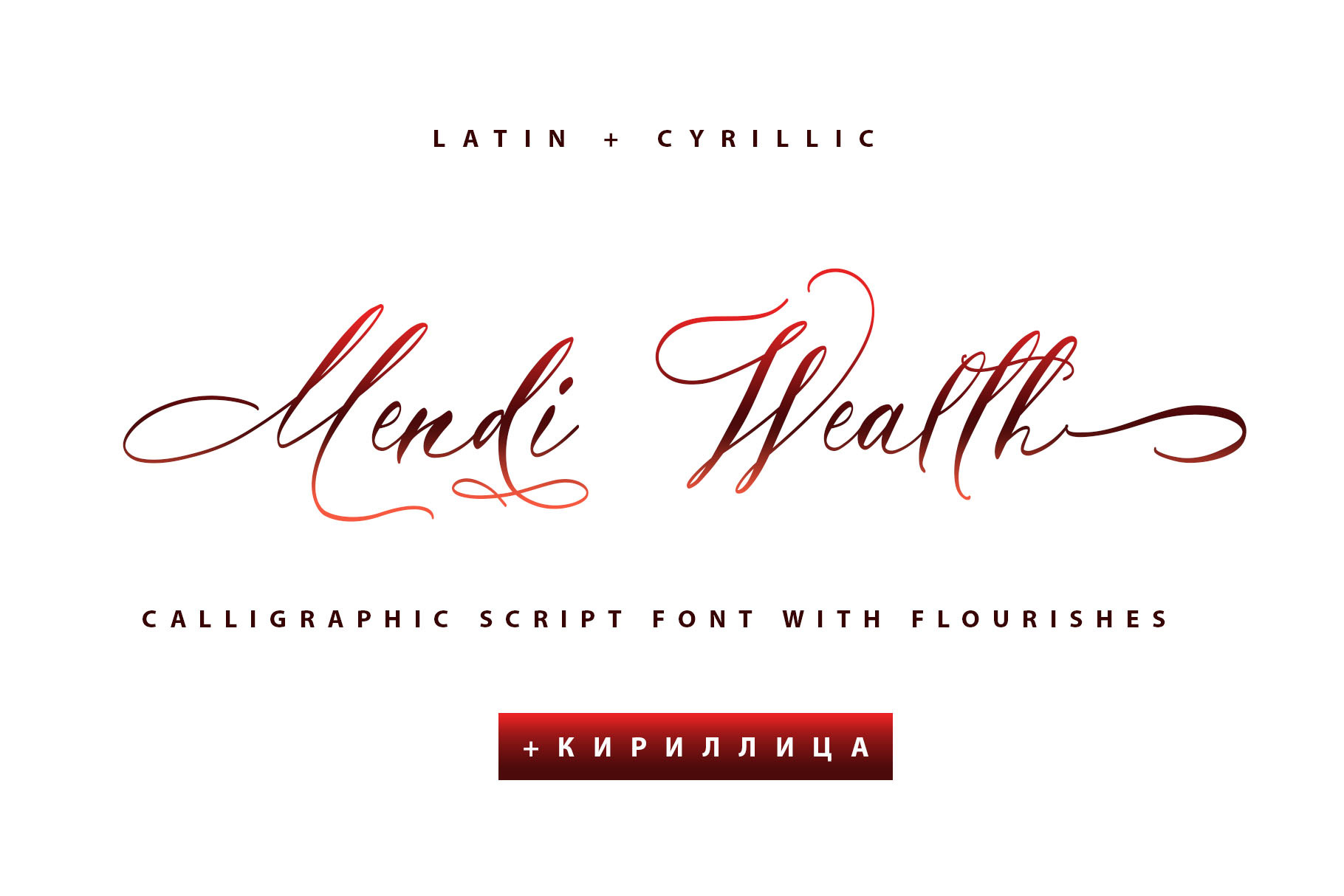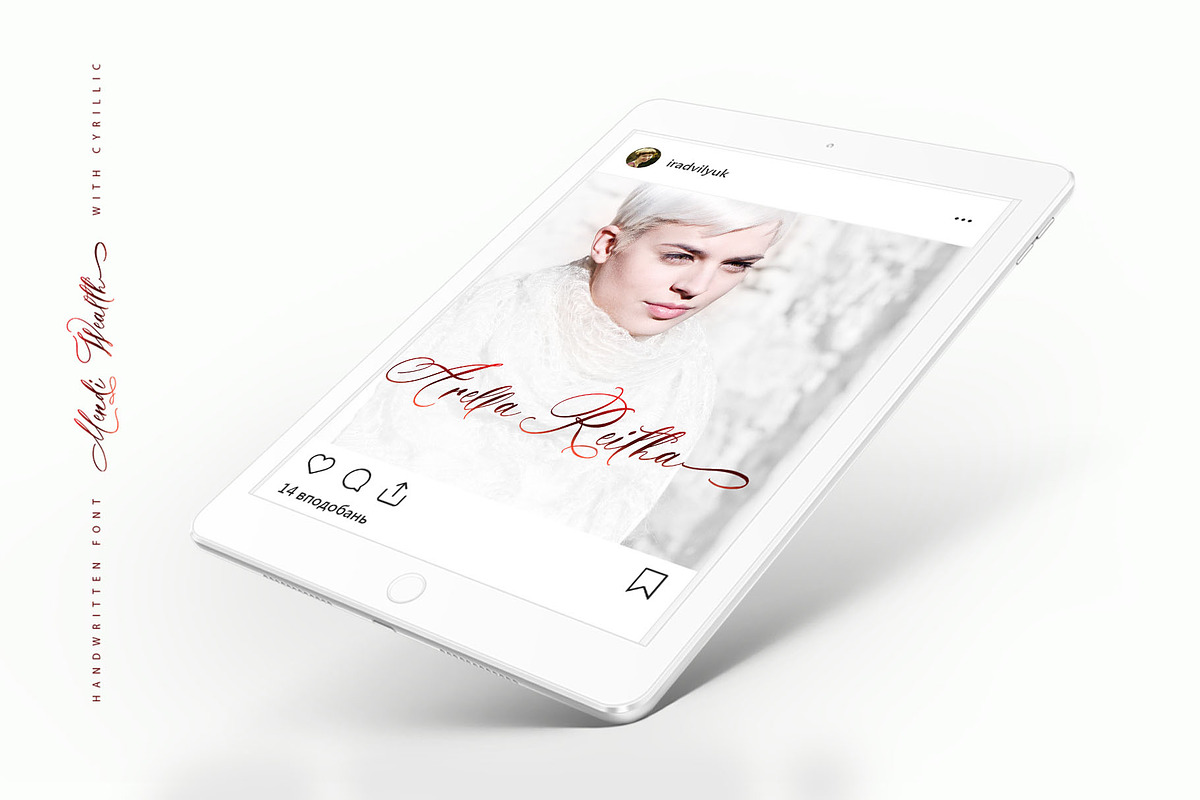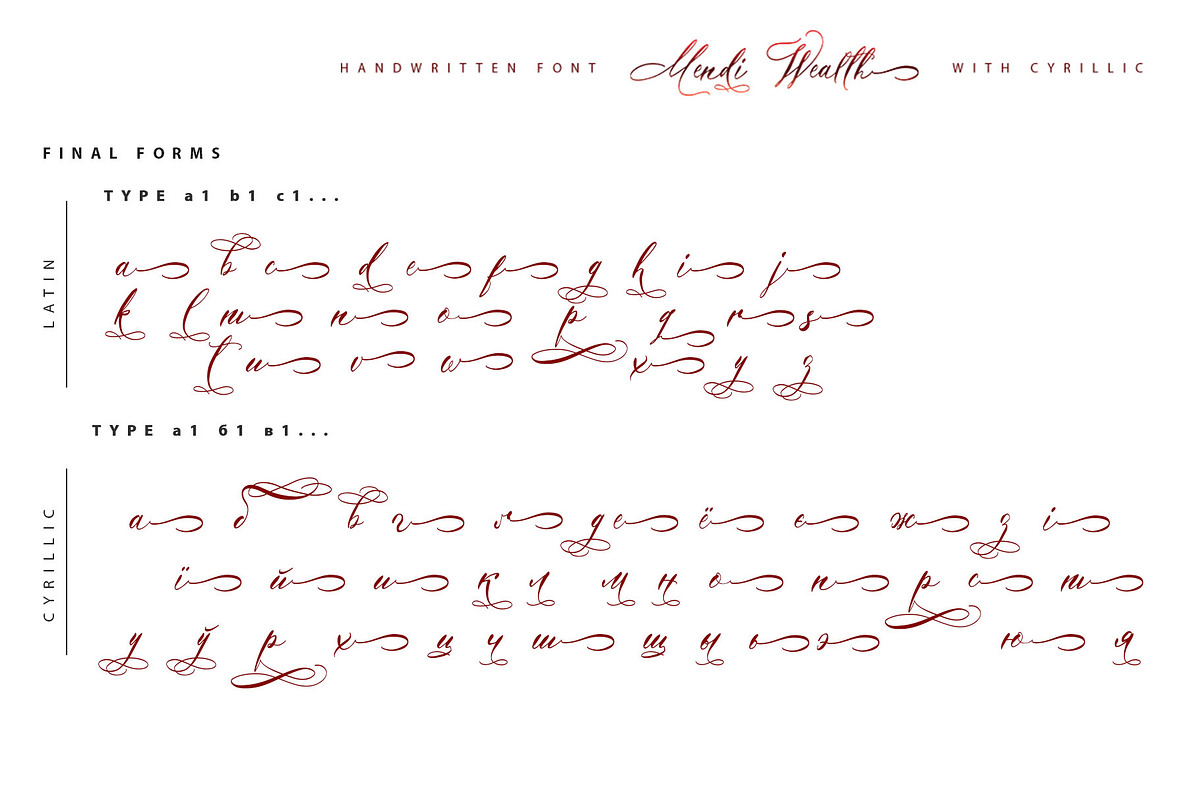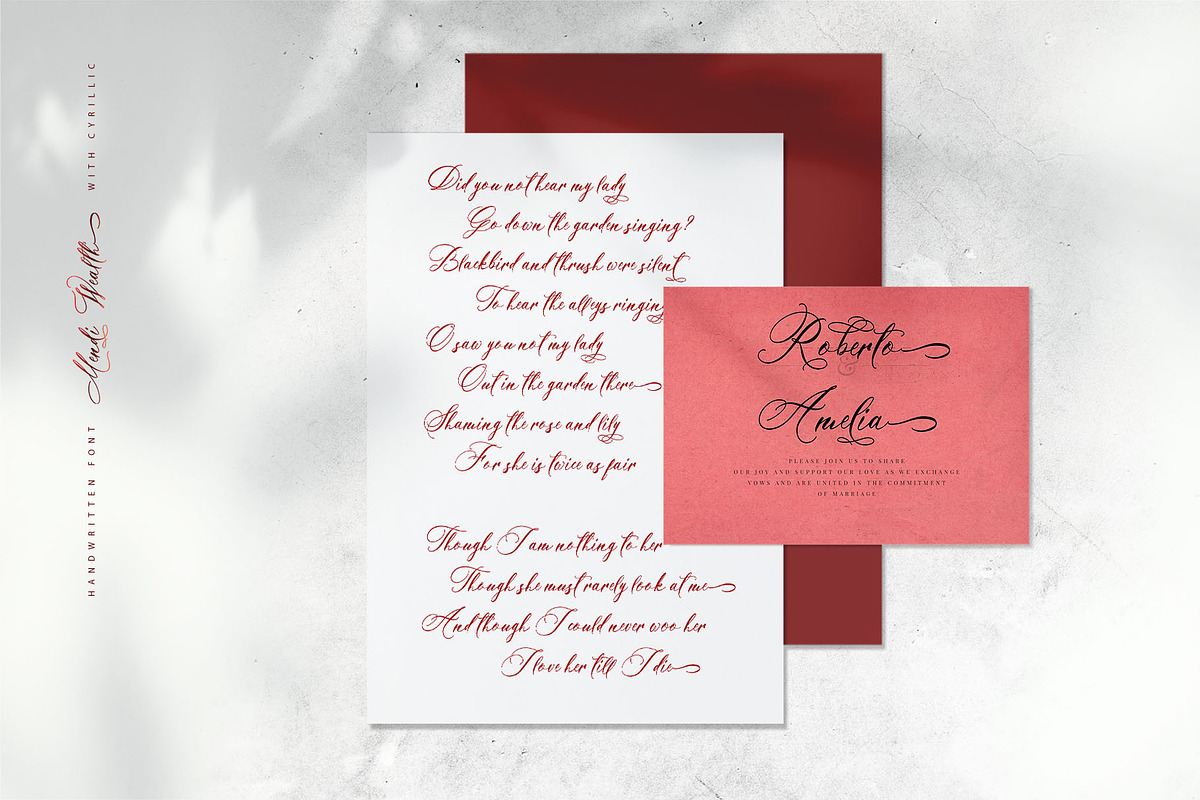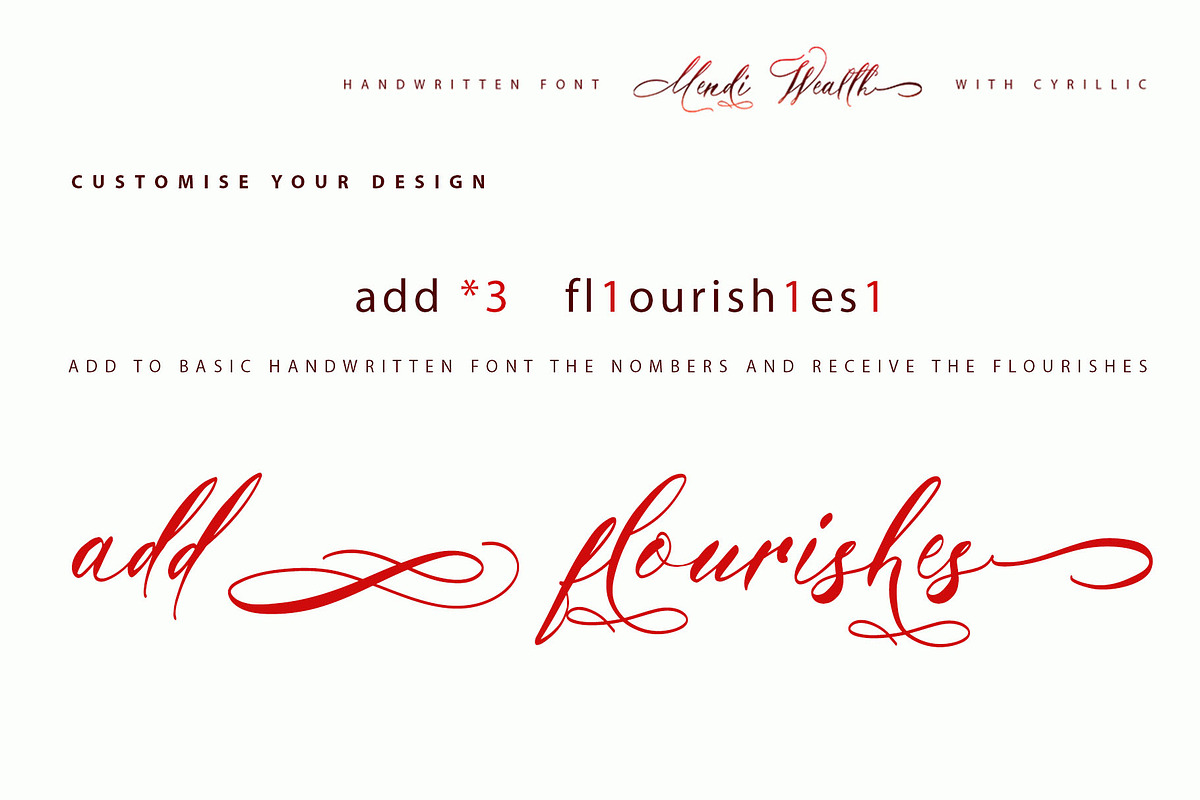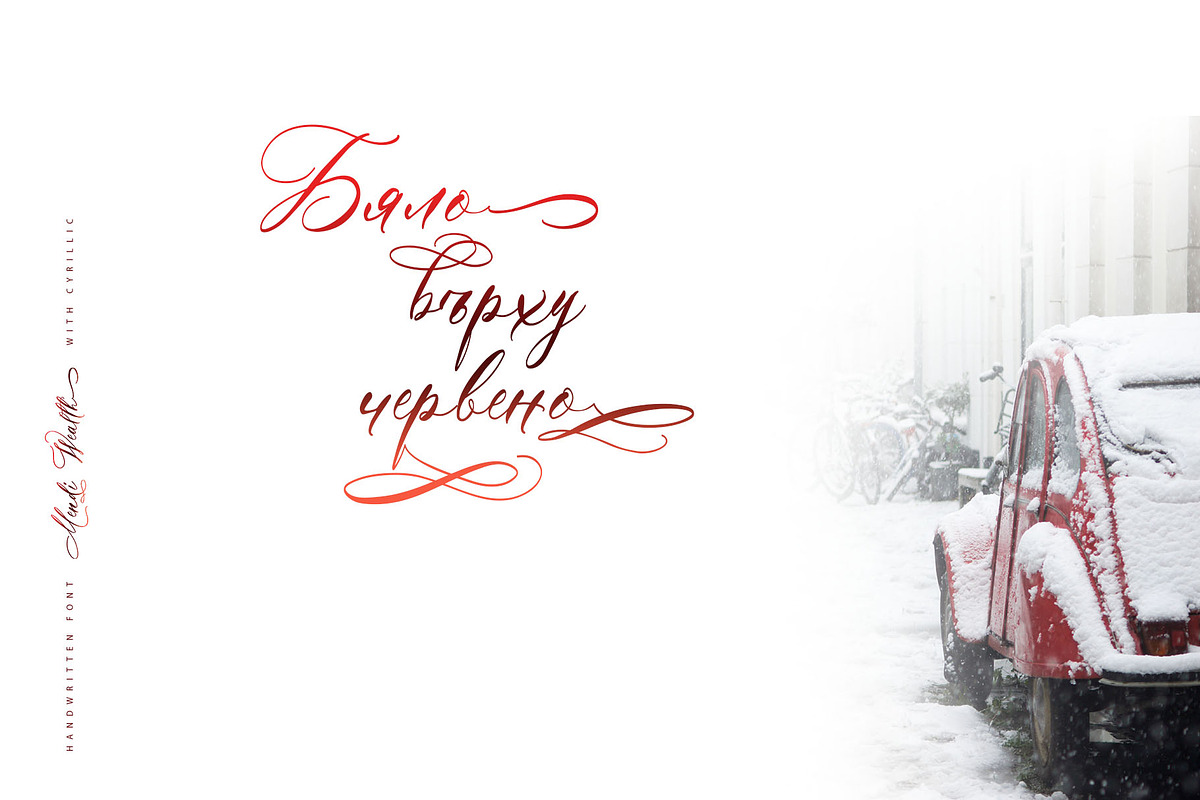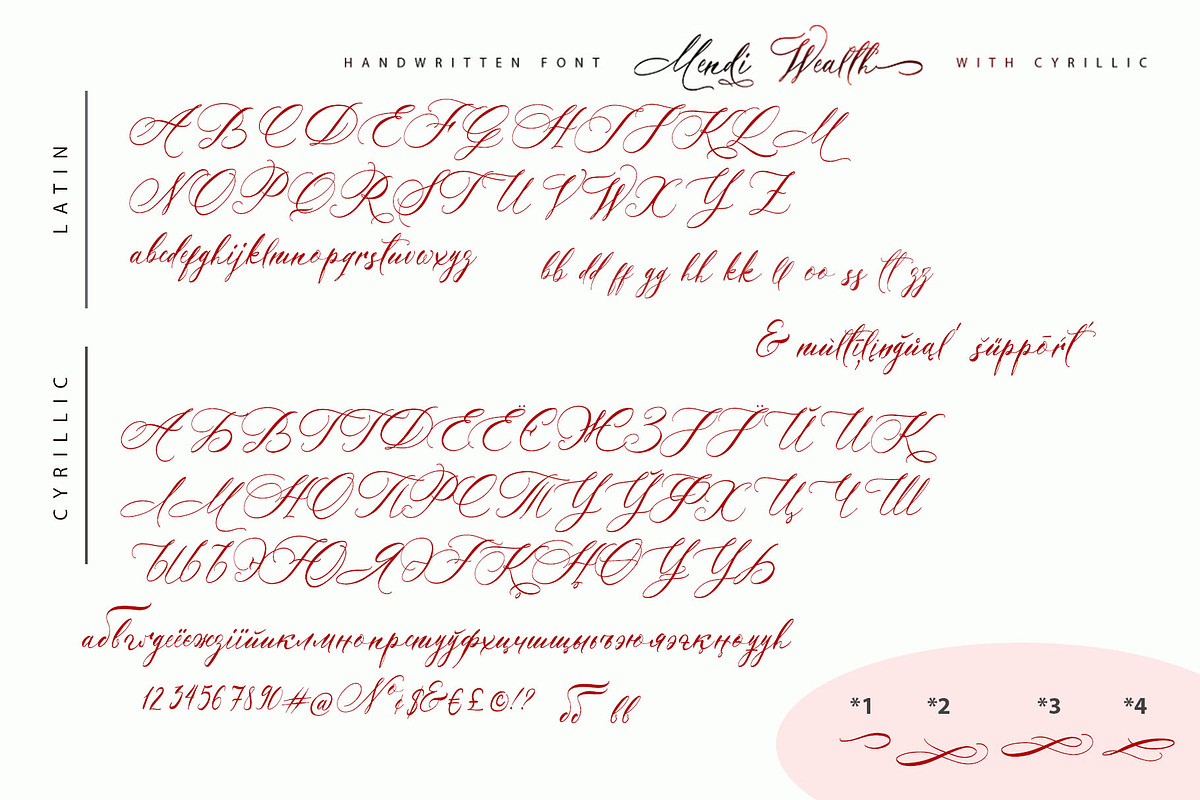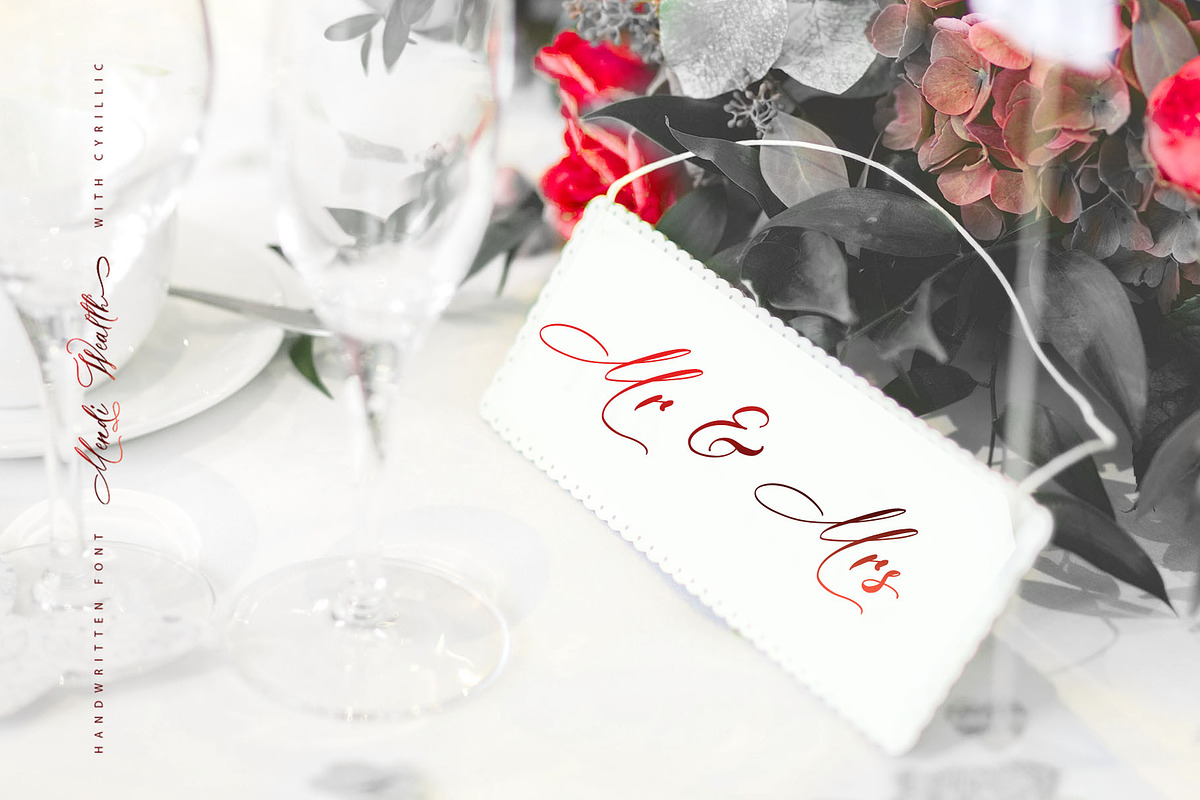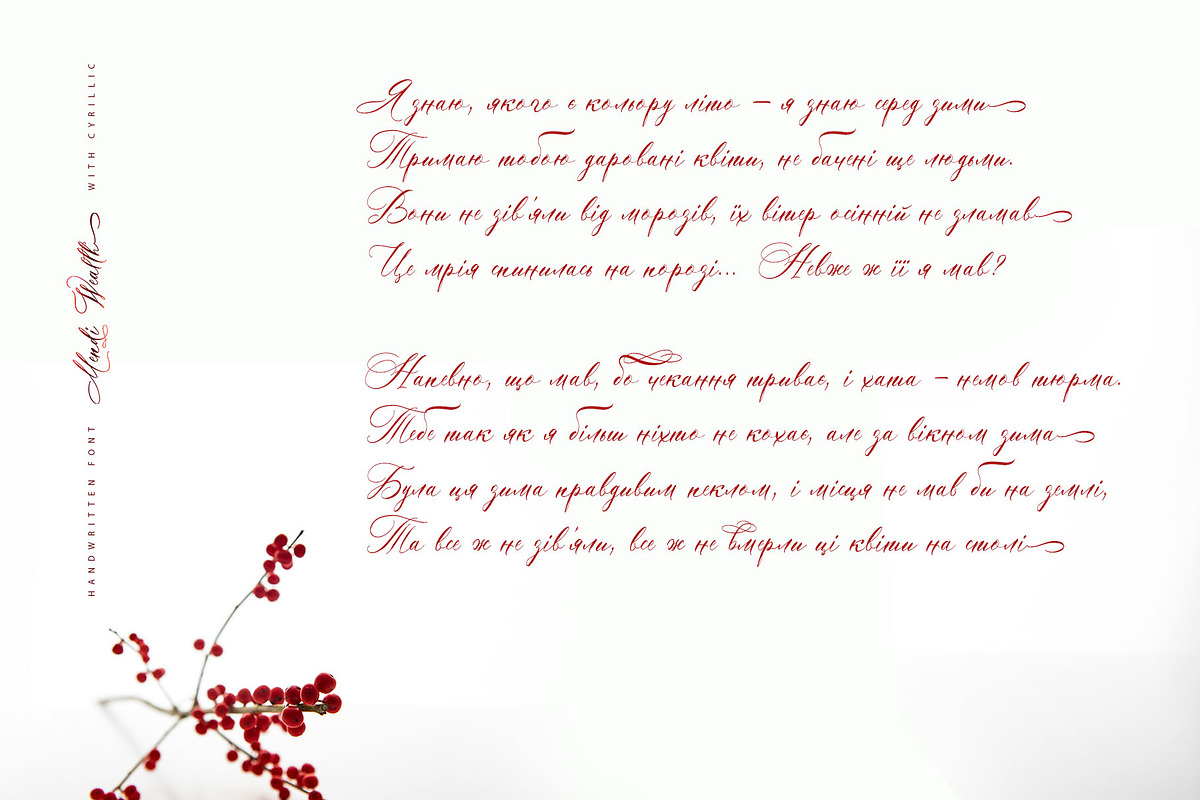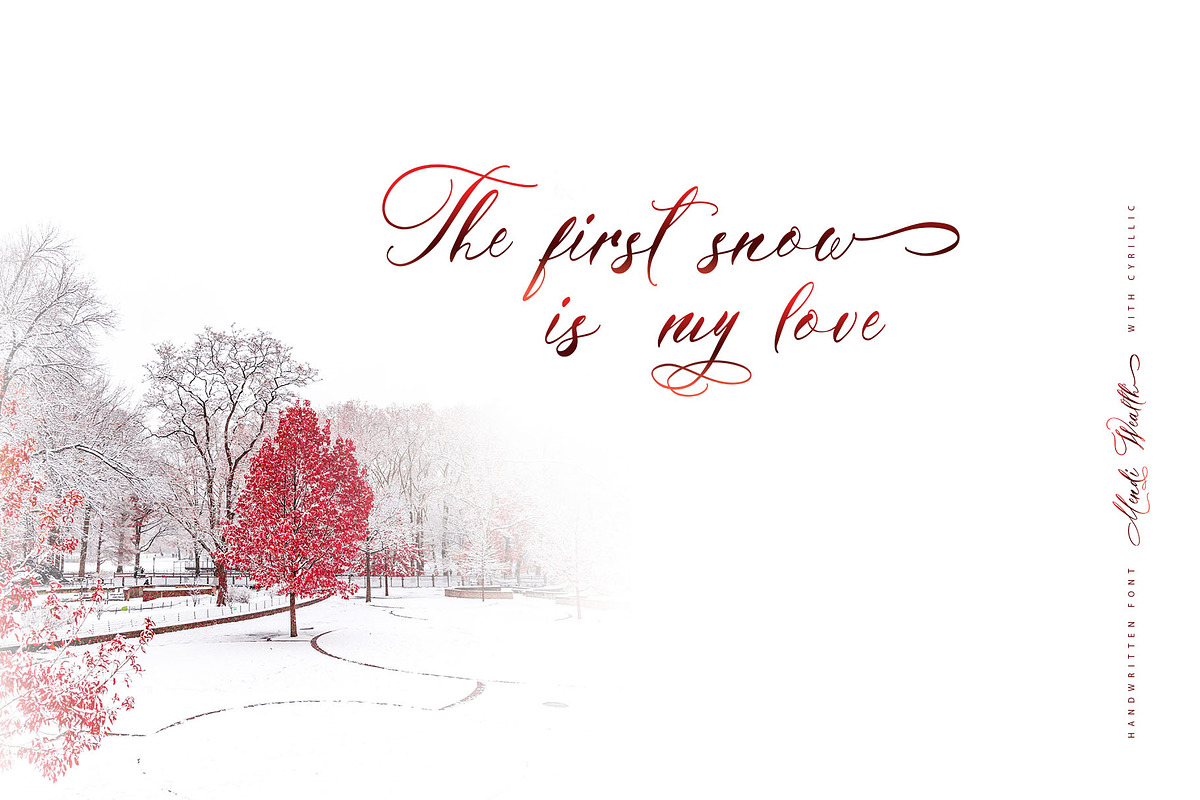
Mendi Wealth Cyrillic Font
Mendi Wealth Cyrillic Script font was handwritten by pen and will look great on branding design, posters, apparel, logotype, website header, fashion design, wedding card design, and more.
Mendi Wealth Cyrillic script font contains a full set of uppercase and lowercase letters and 13 ligatures - which can be used to create a handwritten calligraphy look.
Multilingual Support for 82 languages: Abaza, Avar, Adyghe, Afrikaans, Agul, Albanian, Asturian, Basque, Belarusian, Bulgarian, Breton, Buryat, Valencian, English, Estonian, Faroese, Finnish, French, Frisian, Gaelic (Scottish), Galician, German, Hungarian, Icelandic, Indonesian, Ingush, Irish, Italian, Kabardino-Circassian, Karakalpak (Lat.), Karachay-Balkar, Karelian, Kazakh, Komi-Permyak, Komi-Zyryan, Kurdish (Lat.), Kumyk, Lak, Latin, Latvian, Lezgin, Lithuanian, Maori, Mongolian (Kyrgyz.), Mordovian-Erzya, Mordovian-Moksha, Nogai, Norwegian, Occitan, Polish, Portuguese, Rhaetian-Romance, Romanian, Russian, Rutul, Sami Lule, Slovak, Slovenian, Spanish, Swedish, Tabasaran, Tat, Tswan, Tuvinian, Turkmen (Lat.), Ukrainian, Uzbek (Lat.), Valencian, Welsh